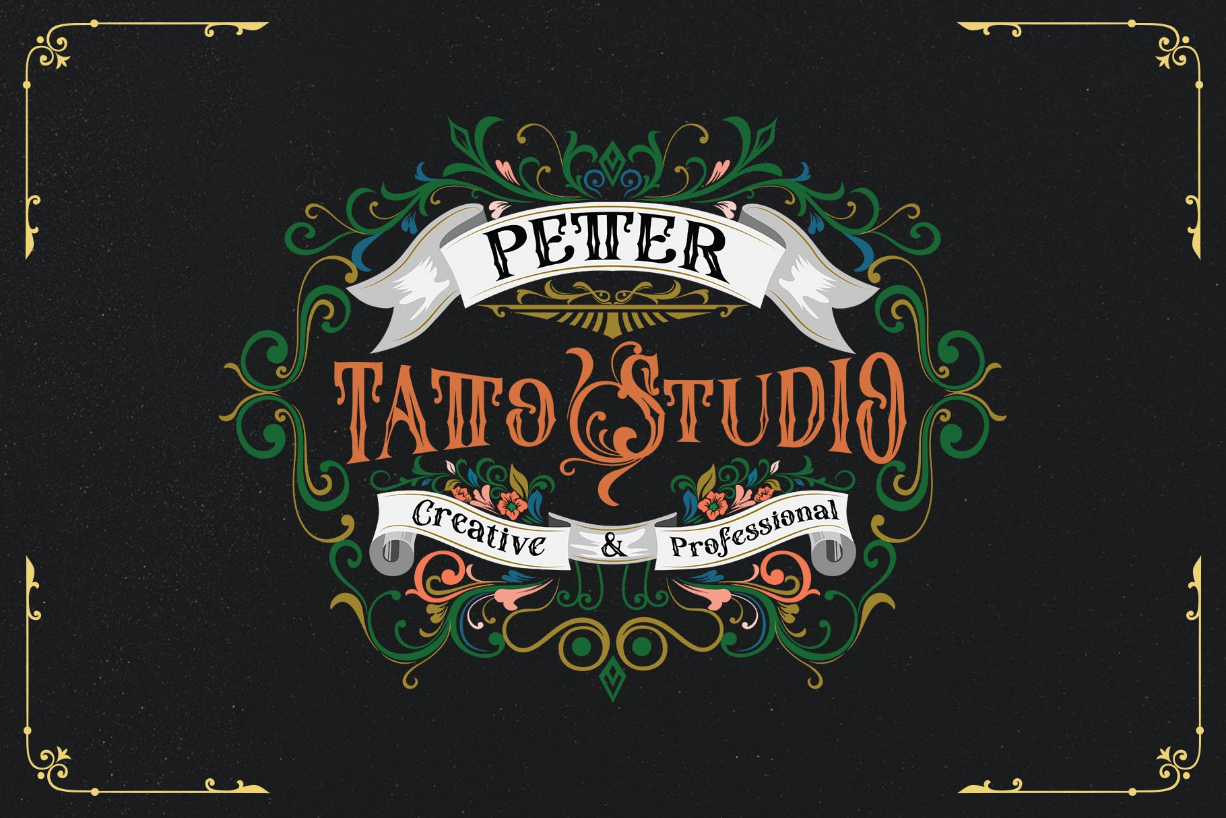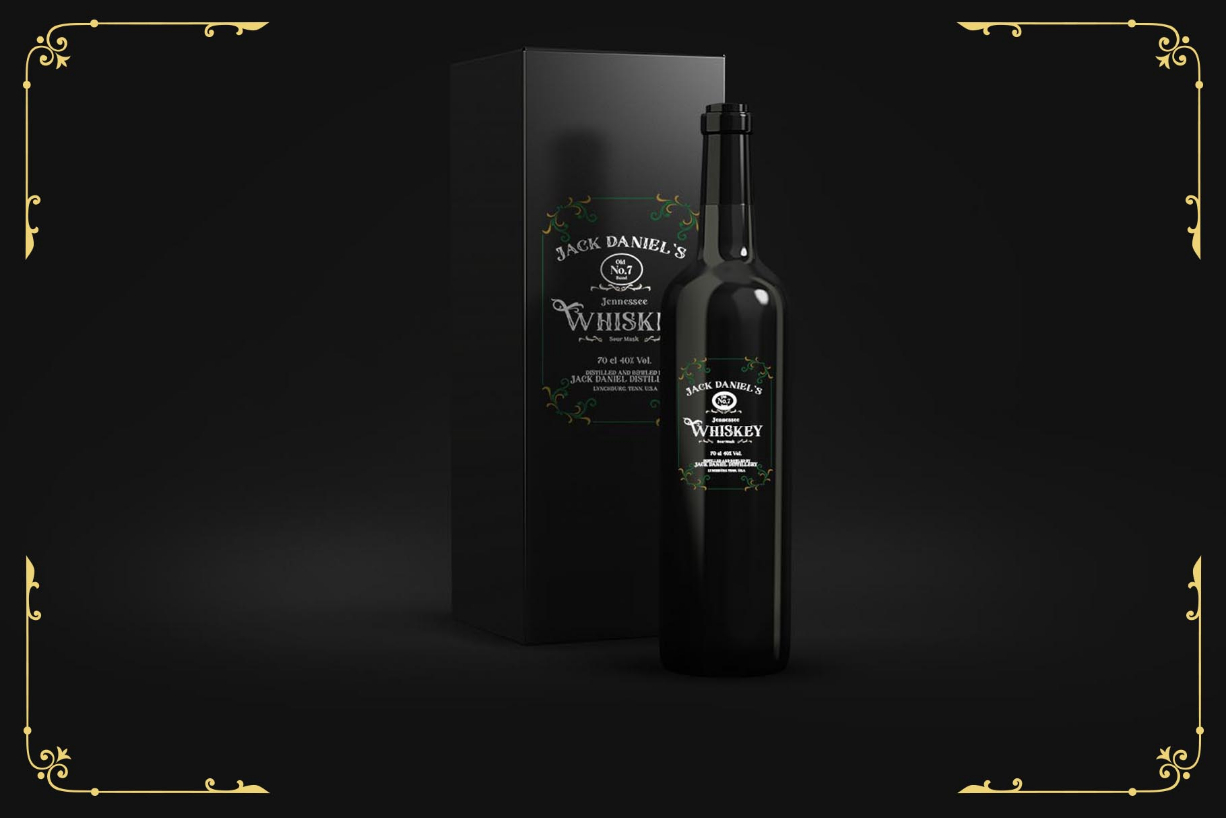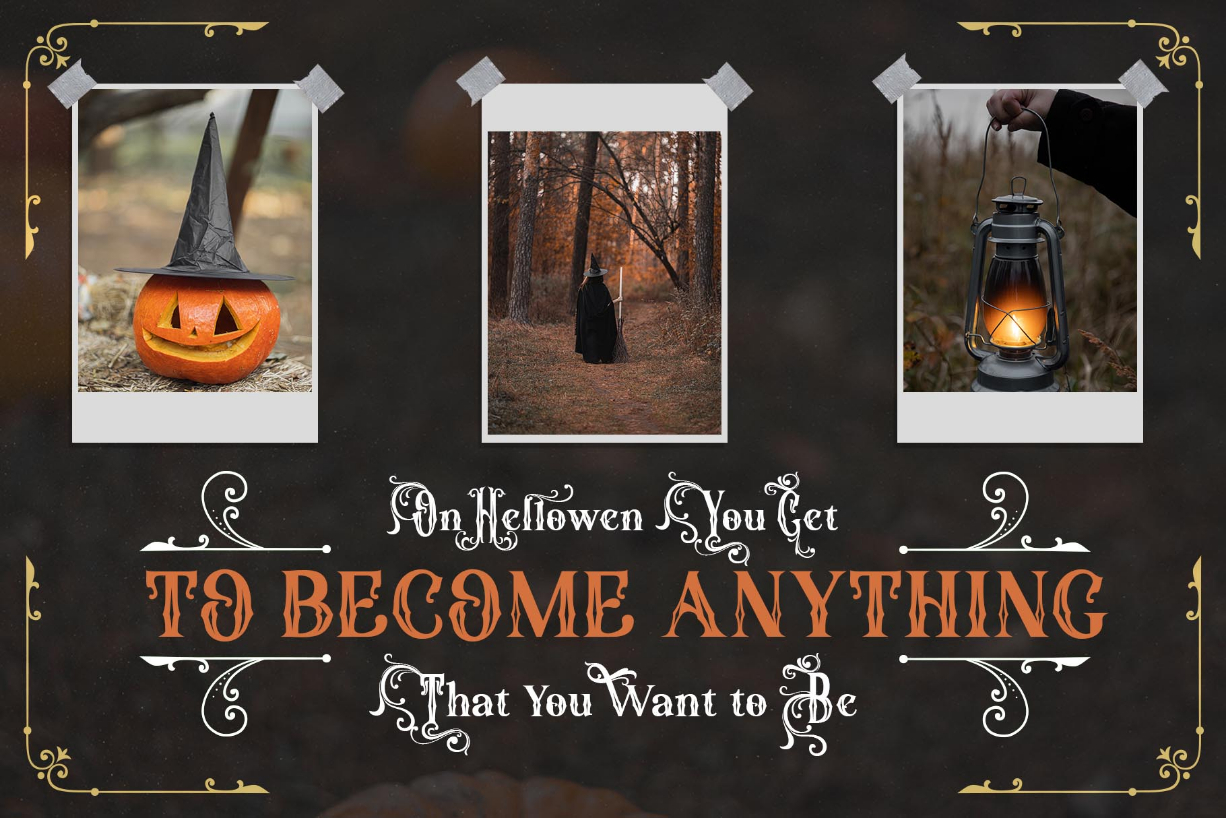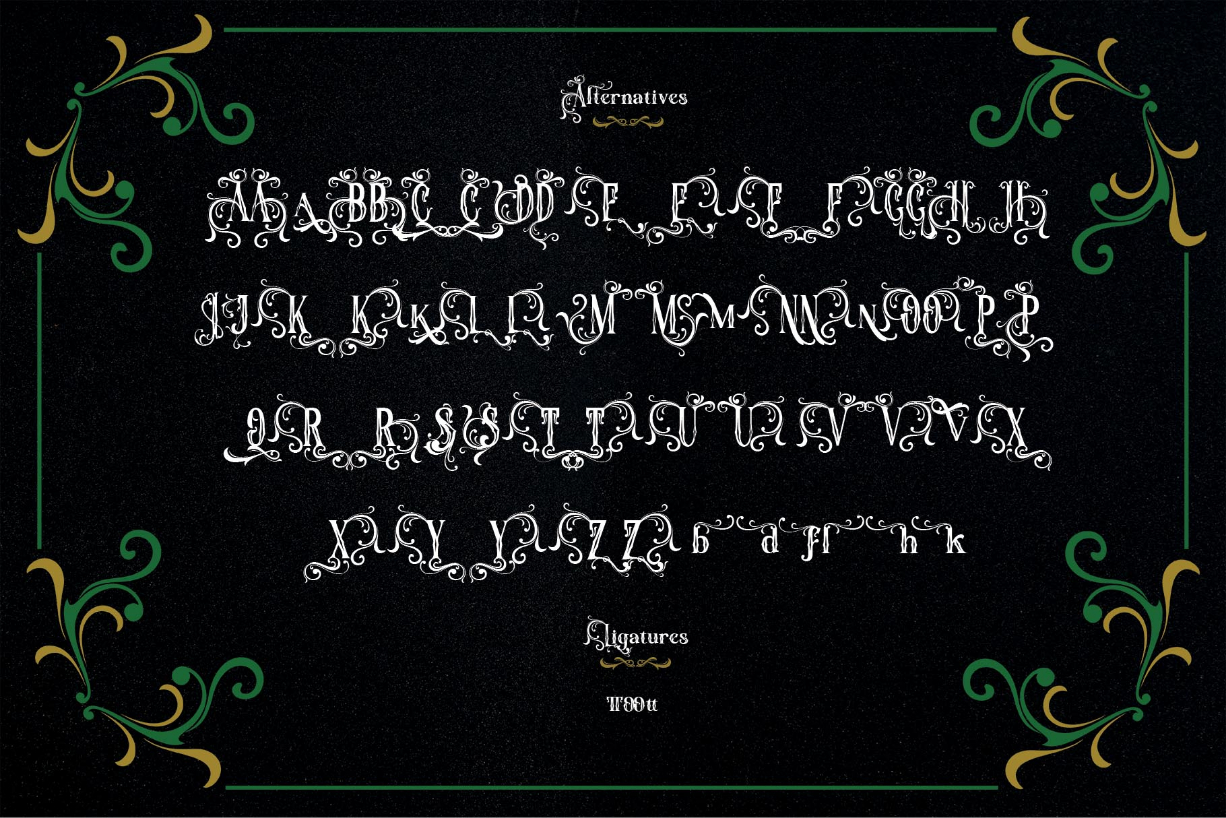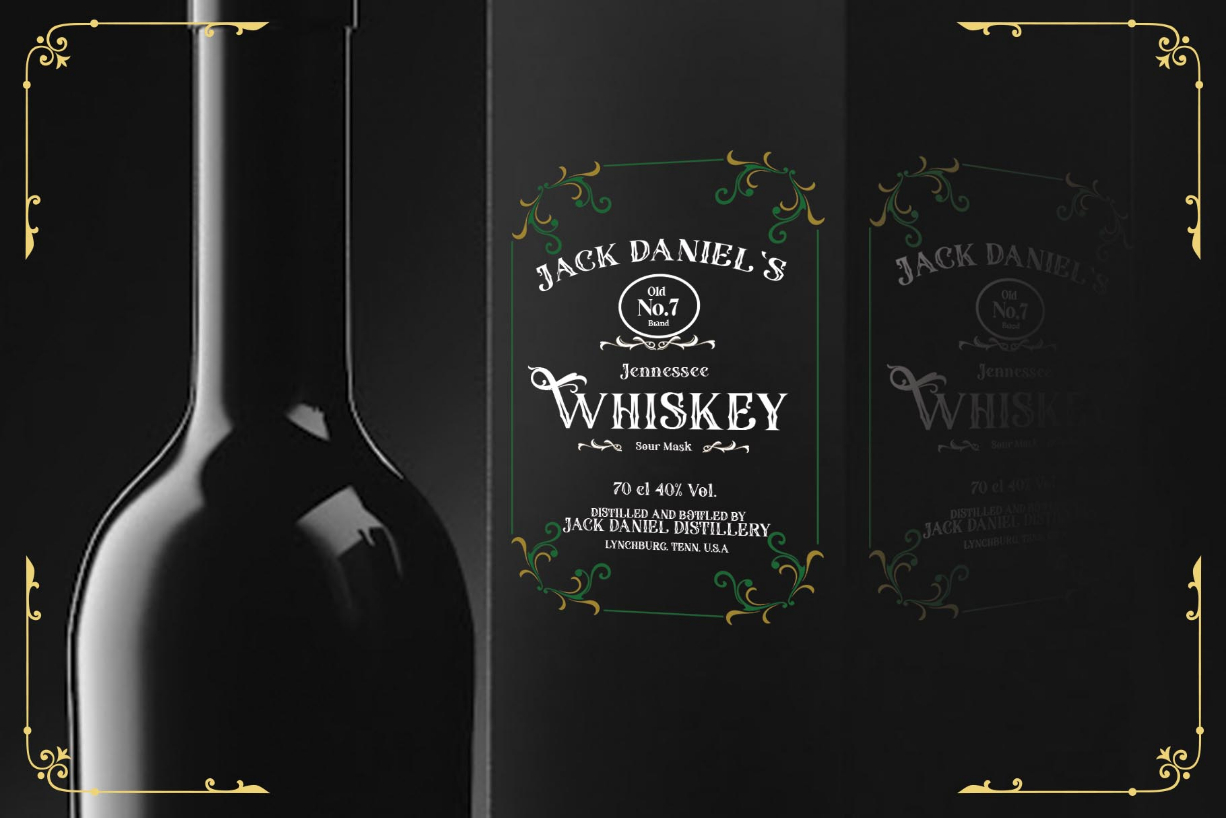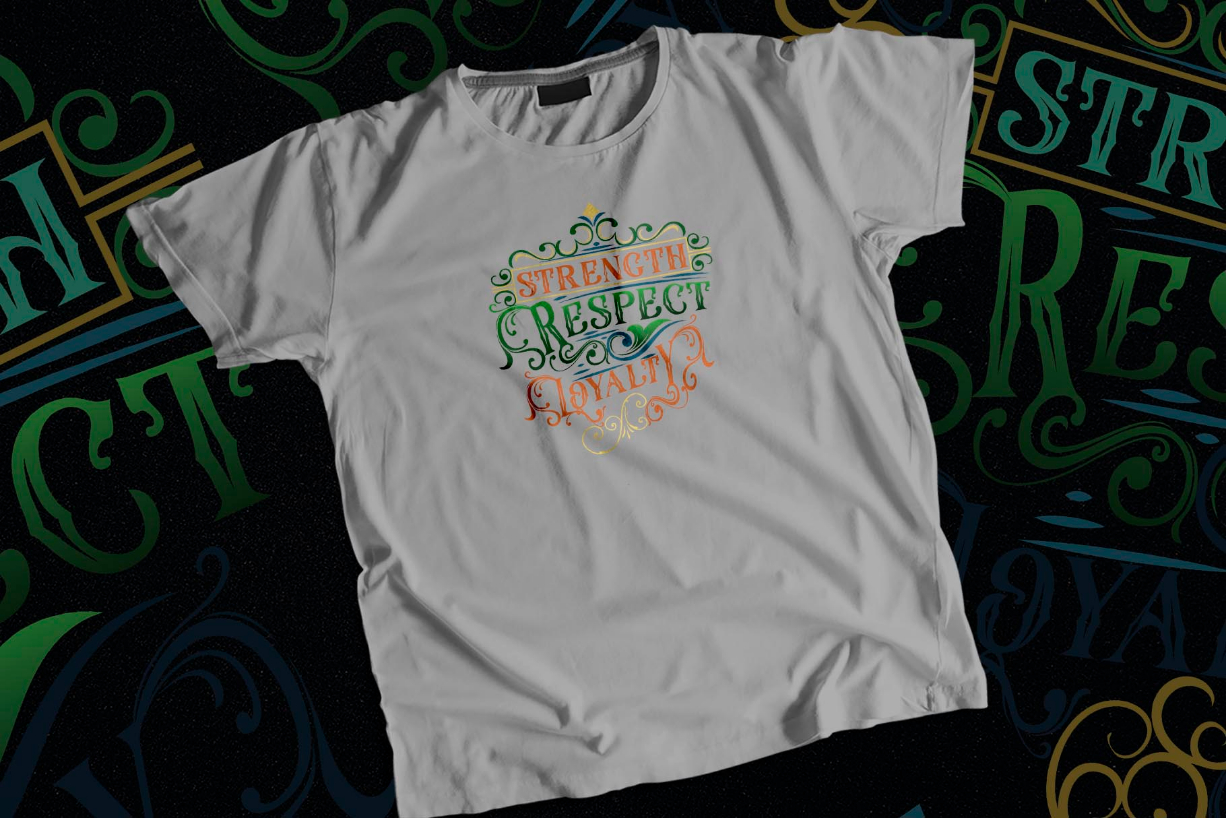
The Throne Font
About The Throne Font
The Throne is a unique and eye-catching blackletter font. The Throne typeface is very suitable for design themed with gothic, vintage, rock designs and for whiskey packaging designs.